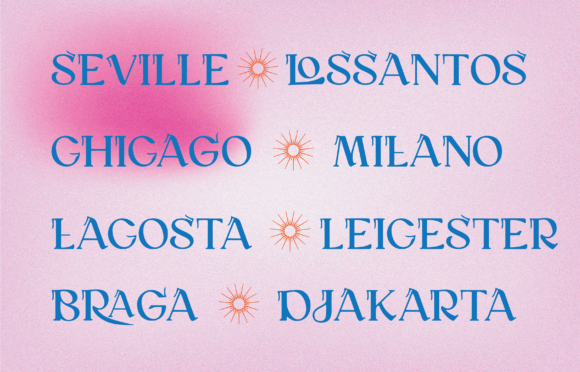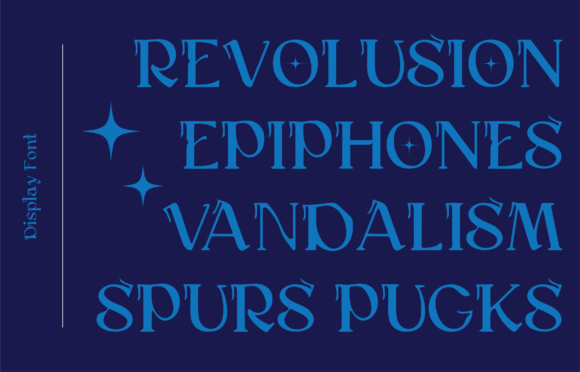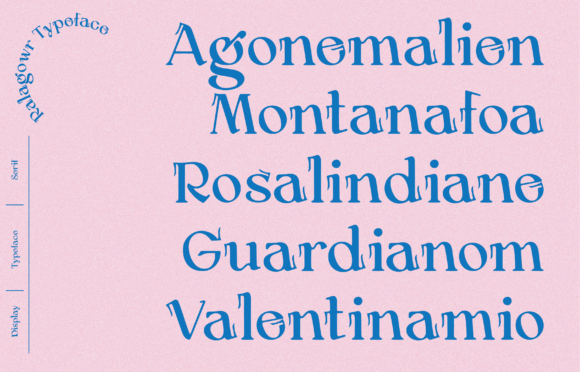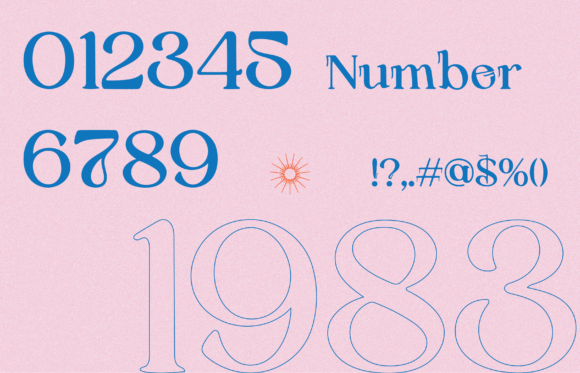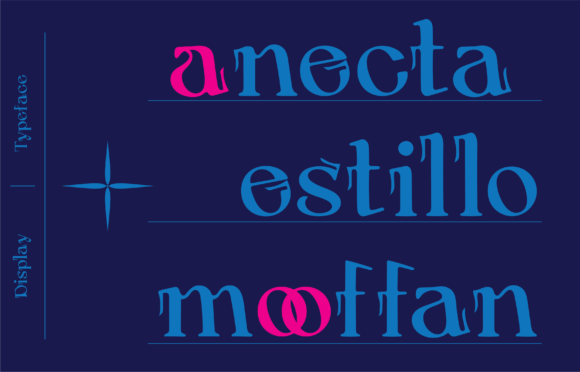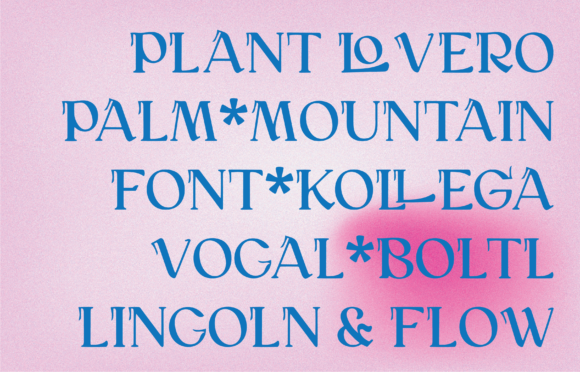
Introduction to Ralagowr Font
Imagine you’re browsing through a design market, and suddenly, a stylish logo catches your eye. The elegant serif font is what makes it stand out, and you can’t help but wonder what font it is. If you’re a designer, you know the struggle of finding the perfect font for your creative project. This is where Ralagowr Font comes in – a fashionable serif font that elevates any design to the next level.
Whether you’re working on a branding project, marketing materials, or packaging, Ralagowr Font is the perfect design resource to add a touch of sophistication. With its high quality and versatile style, it’s no wonder designers love to use it for a variety of creative projects. And the best part? You can download it for free, making it an accessible addition to your design arsenal.
Key Features of Ralagowr Font
- High-quality, vector-based design for a high-resolution appearance in creative projects.
- Features a transparent background, making it easy to layer over images and other design elements.
- Designed to be versatile, the Ralagowr Font is suitable for a wide range of creative projects, from branding and marketing materials to digital art and publications.
- Includes a comprehensive character set, covering a wide range of languages and alphabets for global design applications.
- Perfect for designers seeking a unique, high-quality design resource for their next creative project.
Honest Review: Ralagowr Font
I recently had the chance to dive into the Ralagowr Font, and I must say, it’s been a game-changer for my design projects. This font is a valuable addition to any designer’s toolkit, offering a high-quality, versatile design resource that’s perfect for creative projects.
What works well: ✨ I was immediately impressed by the font’s unique aesthetic, which adds a touch of sophistication to any design. The transparent background allows for seamless integration with other design elements, making it a breeze to work with. Plus, the free download option is a huge plus, making it accessible to designers of all levels.
What doesn’t: ⚠️ While the font itself is excellent, I did encounter some minor compatibility issues with certain software. Additionally, the font’s high quality comes with a larger file size, which may be a concern for designers working with limited storage space.
Overall, I’m thoroughly impressed with the Ralagowr Font. Its unique design and high-quality features make it a valuable resource for any designer working on a creative project. If you’re looking for a reliable design resource, I highly recommend giving the Ralagowr Font a try.
- Unique aesthetic
Tips for Getting the Most Out of Ralagowr Font
Use the Ralagowr Font with a transparent background to create a clean and minimalist design. Experiment with different font sizes and styles to achieve the desired visual effect. You can also pair the Ralagowr Font with other high-quality design resources to create a cohesive and professional design.
The Ralagowr Font is suitable for a wide range of creative projects, including graphic design, digital art, and typography-based designs. It’s also great for presentations, documents, and websites that require a clean and modern font.